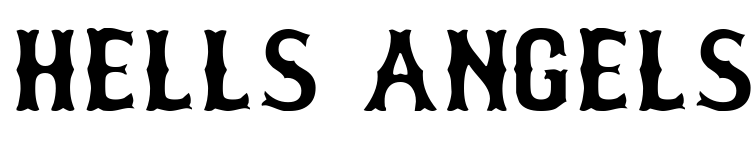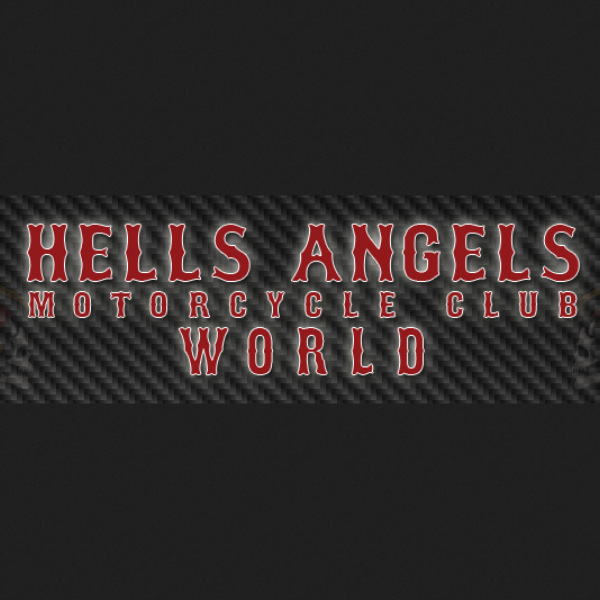
Hells Angels Logo Font
Fonts in UseThe Hells Angels Motorcycle Club (HAMC) is a notorious outlaw motorcycle club, founded in California in 1948. The club has been linked to criminal activity and has been the subject of numerous investigations by law enforcement agencies around the world.
The club's logo font on their website looks like the Bosox font by Lee Gordon, which is a Western-style font family of five fonts. You can download it for free from the Fonts Used Section.